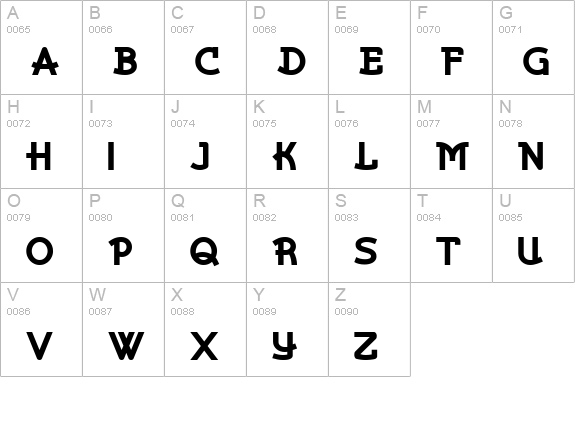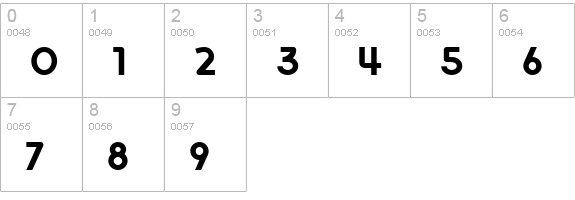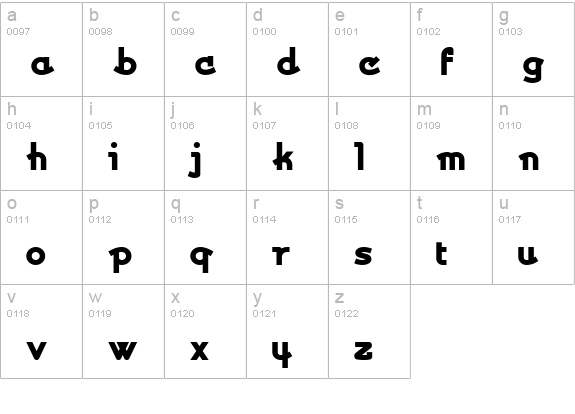
Kurvaceous NF Font Details
Introducing Kurvaceous NF, a modern and stylish font that exudes elegance and sophistication. With its graceful curves and sleek lines, this font is perfect for adding a touch of luxury to your designs. Whether you're creating invitations, branding materials, or anything in between, Kurvaceous NF is sure to make a lasting impression. The best part? Kurvaceous NF is completely free to download at FontsMarket.com. That's right, you can elevate your projects with this stunning font without spending a dime. Don't miss out on the opportunity to enhance your creative endeavors with Kurvaceous NF - download it today and let your designs shine!